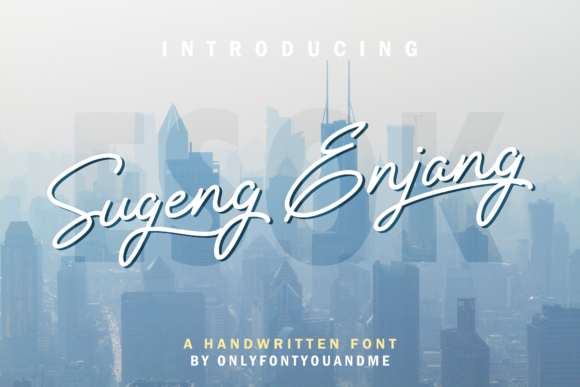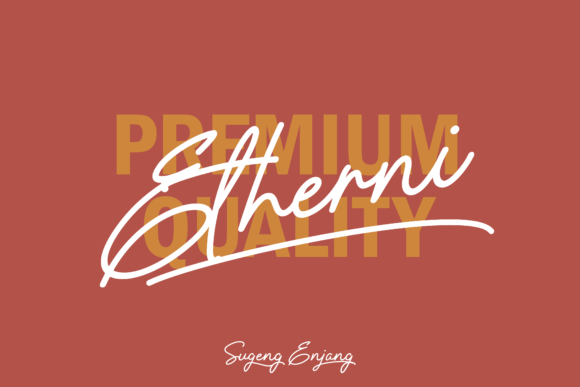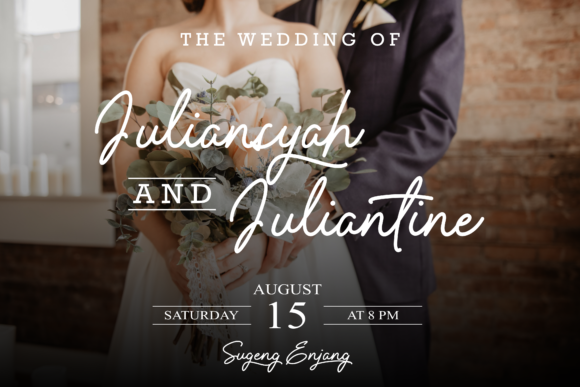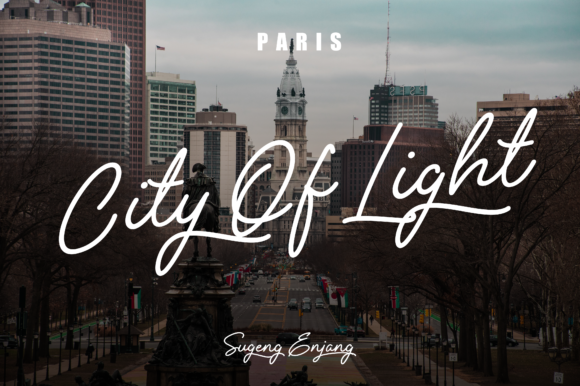
Sugeng Enjang Font
About Sugeng Enjang Font
Sugeng Enjang is an elegant handwritten font featuring stunning strokes. This exquisite typeface is suitable for various wedding invitations, fashion cards, personal branding, and other creative ideas.